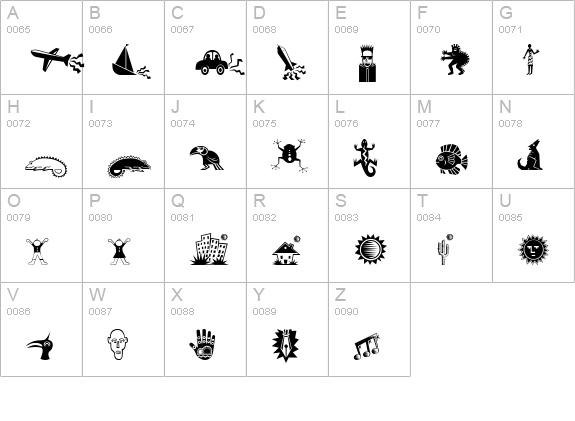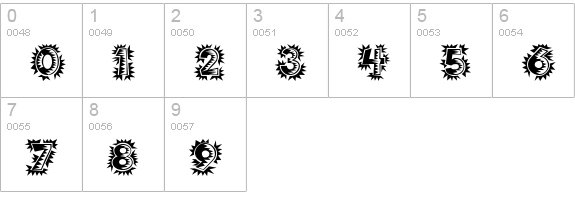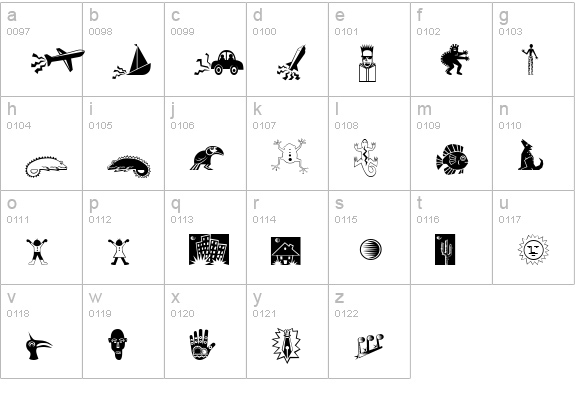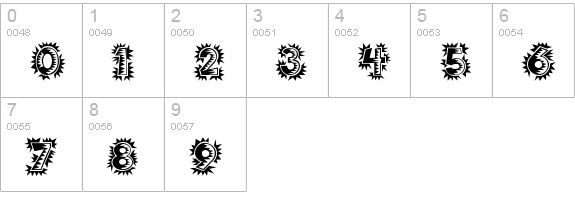
PopticsOneExtras Font Details
PopticsOneExtras font is a stunning display typeface that brings a touch of whimsy and creativity to your designs. With its playful and unique characters, this font is perfect for adding a pop of personality to any project. The set includes a variety of extra elements such as arrows, symbols, and decorative ornaments, allowing you to create truly eye-catching designs. The best part? PopticsOneExtras font is completely free to download at FontsMarket.com. Whether you're working on a branding project, social media graphics, or any other creative endeavor, this font is sure to make a statement. Don't miss out on the opportunity to enhance your designs with this fun and versatile typeface. Download PopticsOneExtras font today and take your designs to the next level!